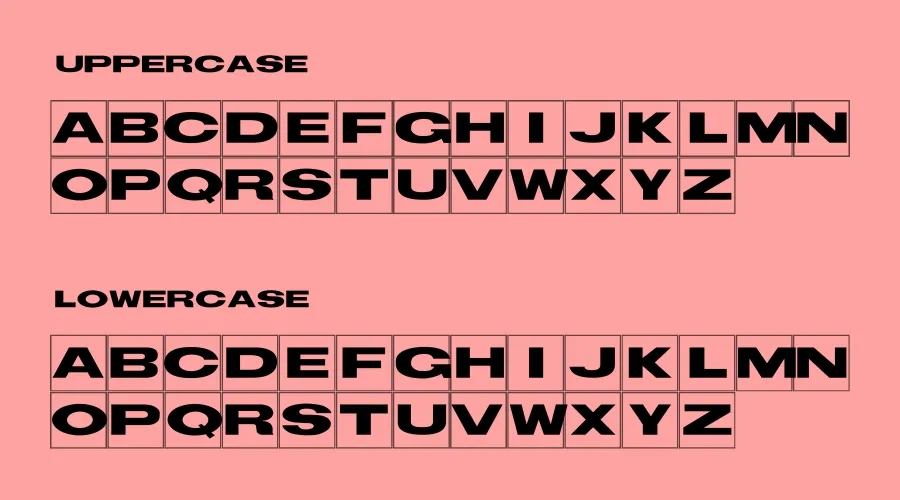
TS Block Font
About TS Block Font
Now, going to introduce to you a very elegant and good-looking sans-serif texture family. The TS Block Font was invented by a well-known graphic designer named Steve Ferrera with a unique and straightforward texture look appearance. You may easily get it free from here for all your fun tasks and procedures.
It is easy to read and looks great on screen as a headline or even body text. This font has an online generator tool, in which you may change all your normal types of alphabet characters into stylish and trendy shapes.
This font gained so much popularity When this stunning typeface was released in the font world because it has a neat and ultra-modern texture look. You may easily combine this font with the sans caps font and make new elegant projects.
The font is highly versatile and can be used in various sizes without losing its legibility. It has a subtle contemporary feel which is great for praising other design elements.